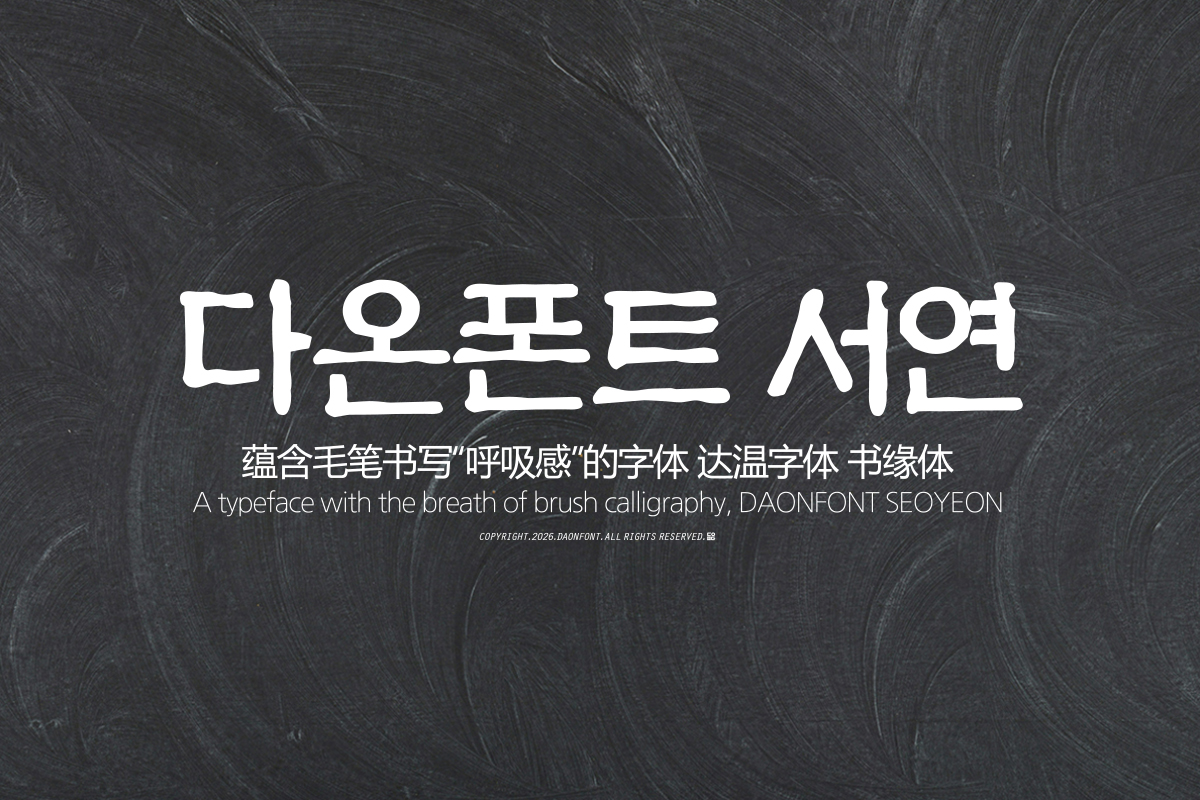
DAON SEOYEON(M)
'SEOYEON' is a Hangul typeface that embodies modern readability and stability based on the solid framework of the traditional Panbonche style. While maintaining the powerful and orderly structure of traditional typefaces, it was designed to be read naturally and comfortably even in digital environments.